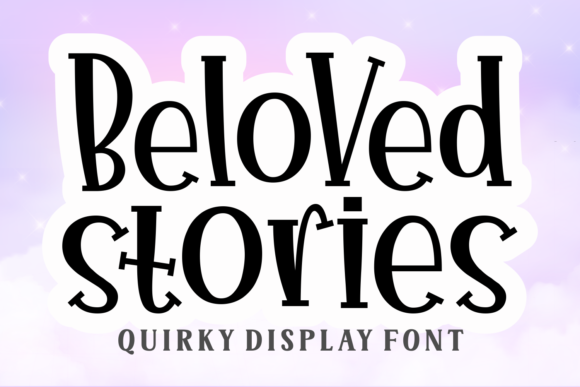
Introducing Beloved Stories Font, an extraordinary creation by Creative Fabrica Fonts, redefining the realm of display fonts with its audacious and distinctive lettering. Embark on a typographic adventure where boldness meets uniqueness, and let your imagination dance amidst a symphony of captivating curves and eye-catching strokes.
Beloved Stories is more than just a font; it's an artistic expression that infuses your creative projects with a dash of playfulness and charm. Its bold and quirky personality makes it the perfect choice for crafting eye-catching headlines, engaging social media posts, and irresistibly delightful invitations. The world of crafting has never witnessed such a font, compatible with cutting machines like Cricut and Silhouette. Beloved Stories is ready to transform your visions into tangible masterpieces, whether it's intricate papercuts, personalized décor, or customized apparel.
Picture yourself crafting a captivating poster that leaps off the wall, adorned with Beloved Stories' bold characters. Its ability to command attention is undeniable, making your message impossible to ignore. Or perhaps you envision a custom t-shirt that sparks conversations wherever you go, adorned with Beloved Stories' charming lettering. With its inherent charisma, this font is guaranteed to make a statement.
Beloved Stories is the ultimate font for those seeking to unleash their inner artist and create designs that exude personality. Its versatility knows no bounds, extending to greeting cards that warm hearts, website designs that captivate, and social media graphics that ignite engagement. The possibilities are boundless, limited only by your imagination.
So, dive into the world of Beloved Stories Font and let your creative spirit soar. Embrace its eclectic charm, revel in its boldness, and produce masterpieces that tell your unique story. Beloved Stories is not just a font; it's an invitation to embark on an artistic journey, one where your creativity takes center stage.